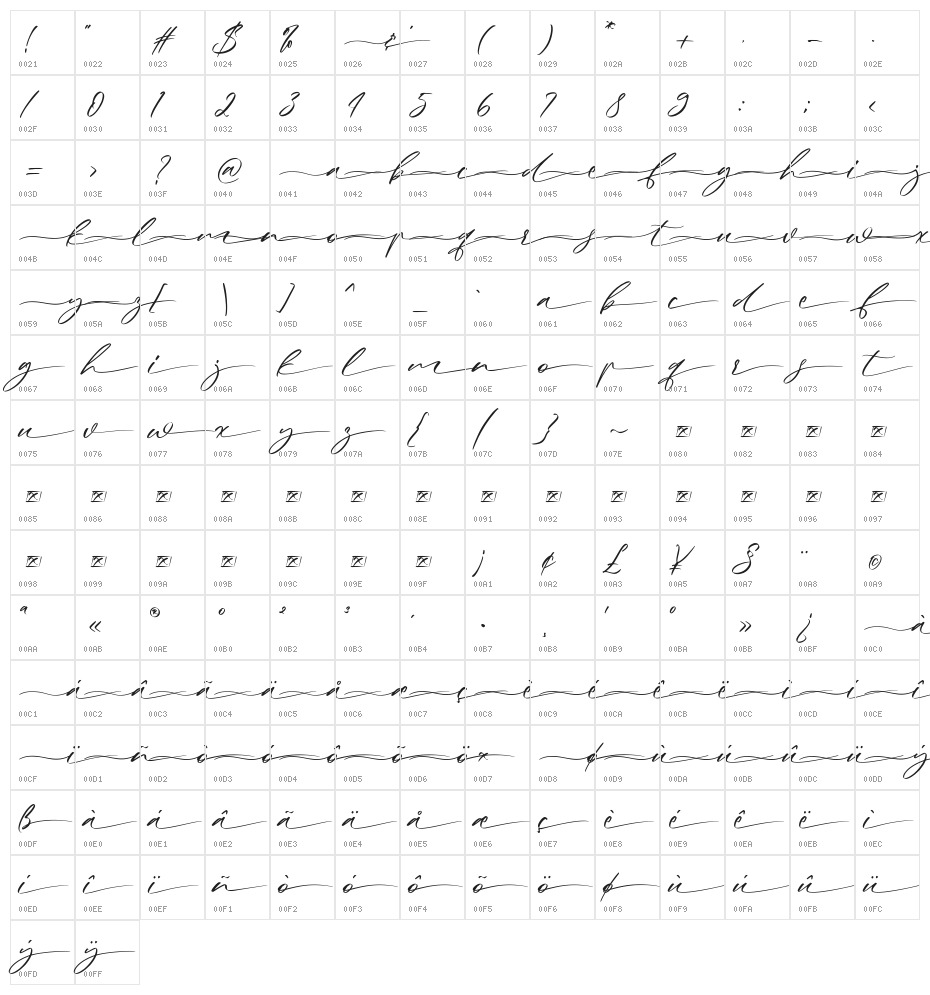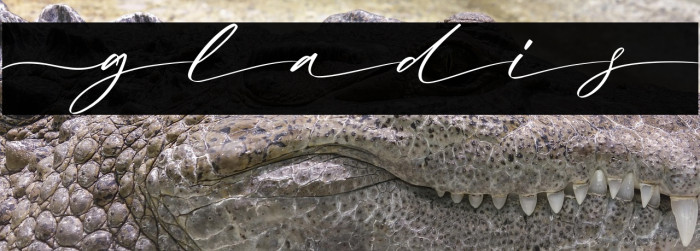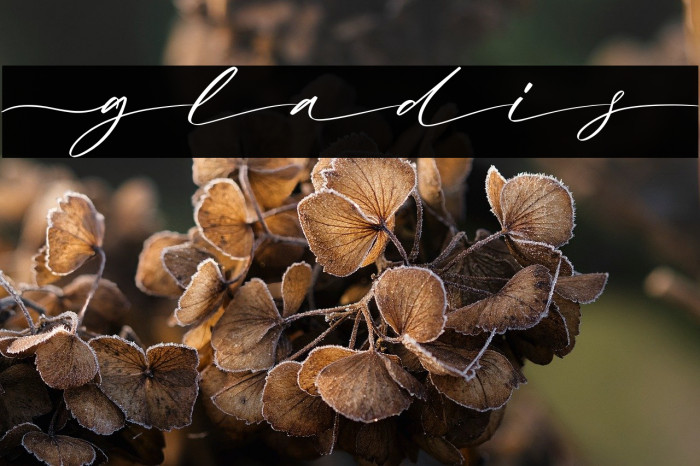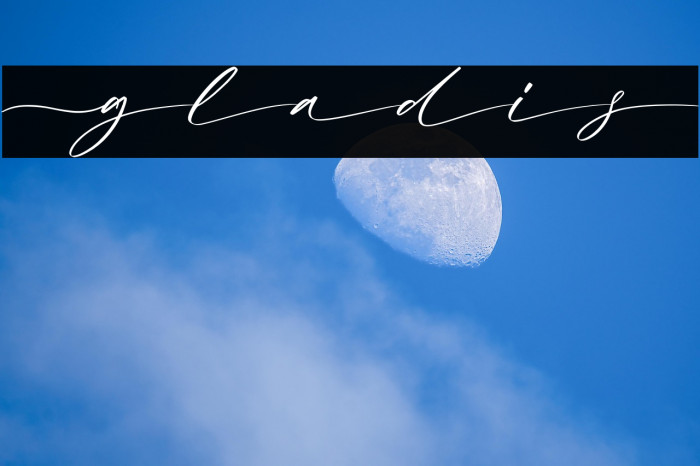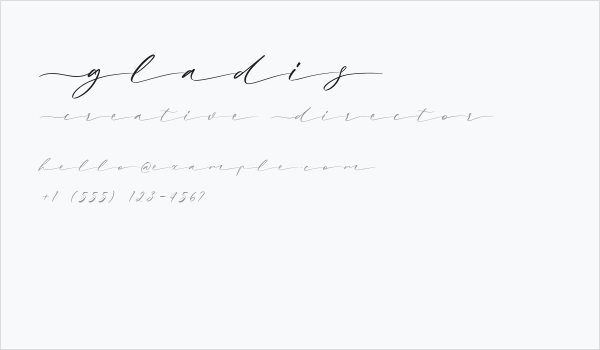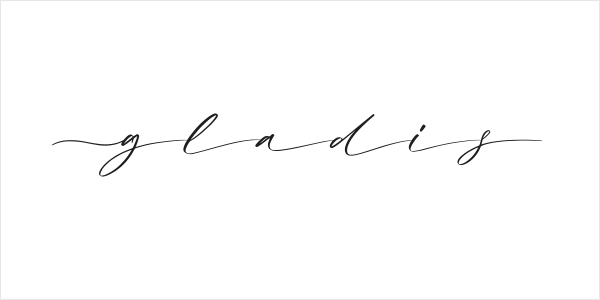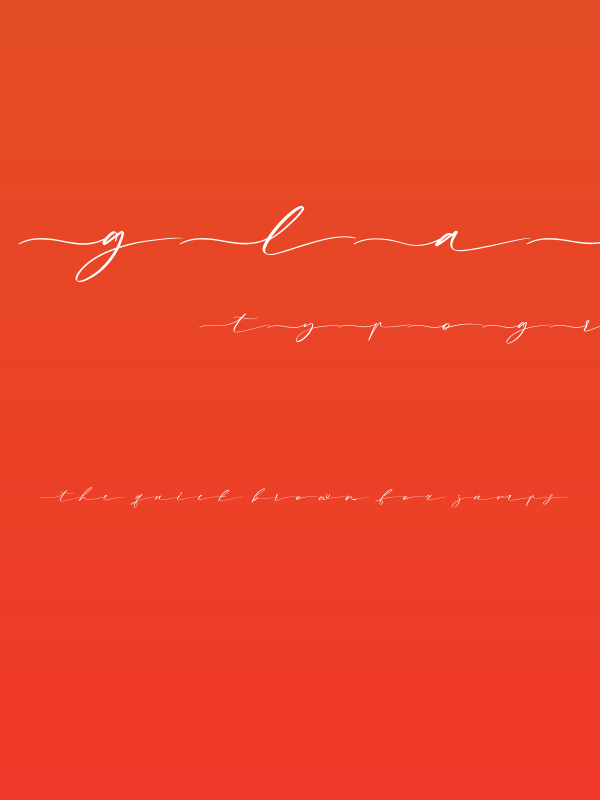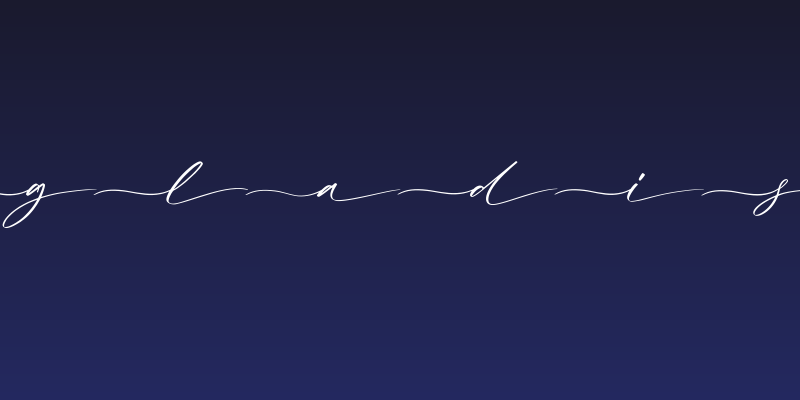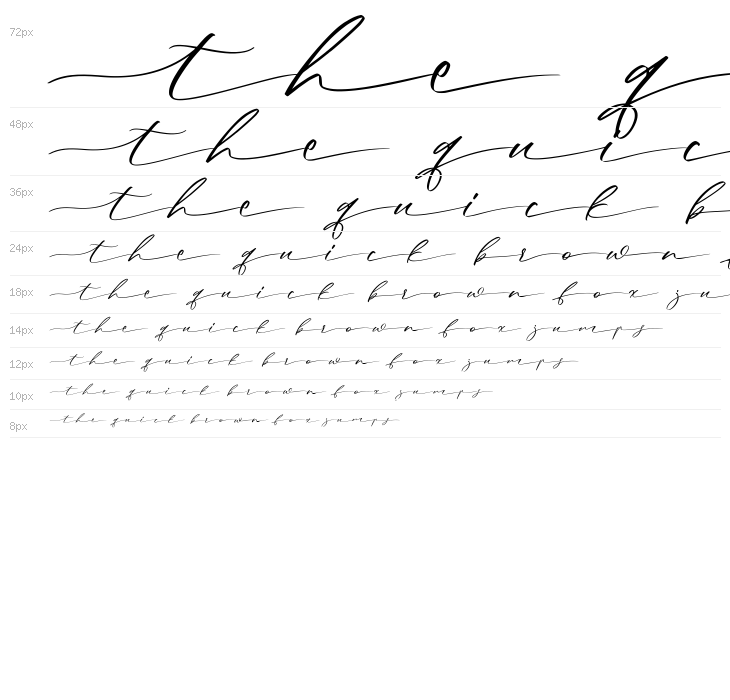
Gladis Font
Gladis Description
This font features an elegant and flowing script style, characterized by its delicate and continuous strokes that mimic the fluidity of handwriting. The uppercase and lowercase letters are seamlessly connected, creating a harmonious and sophisticated appearance. The numerals maintain the same graceful style, ensuring consistency throughout. Special characters are thoughtfully designed to complement the overall aesthetic, making this font suitable for a variety of creative applications. Its refined and artistic nature makes it ideal for projects that require a touch of elegance and personal flair.
| Use Case | Logos, Invitations, Personal stationery |
| Proposed Projects | Ideal for wedding invitations, greeting cards, branding, and personal stationery. |